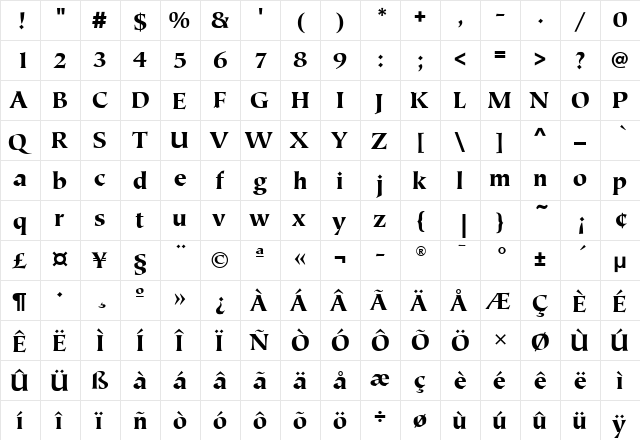
TiepoloBlkITC Medium Font Preview
TiepoloBlkITC Medium
TiepoloBlkITC Medium Font Details
Design Context for TiepoloBlkITC Typeface
TiepoloBlkITC takes a measured approach to typography — its balanced proportions and neutral character make it a reliable workhorse for both digital and print work.